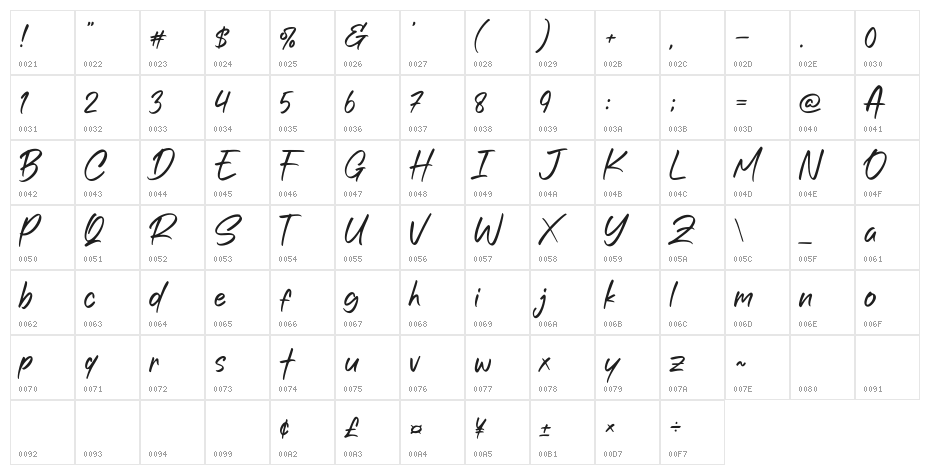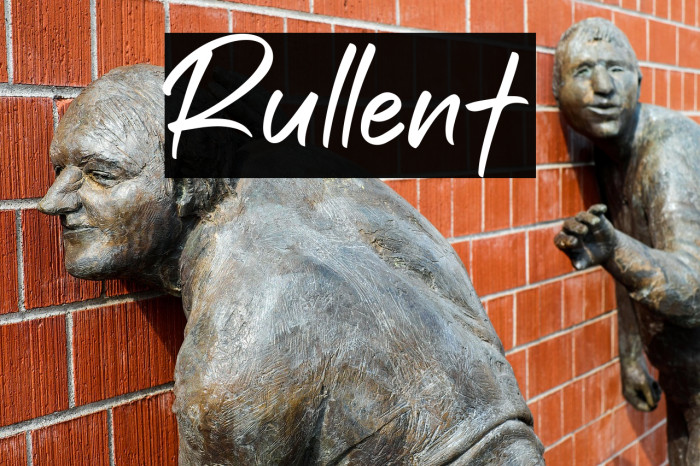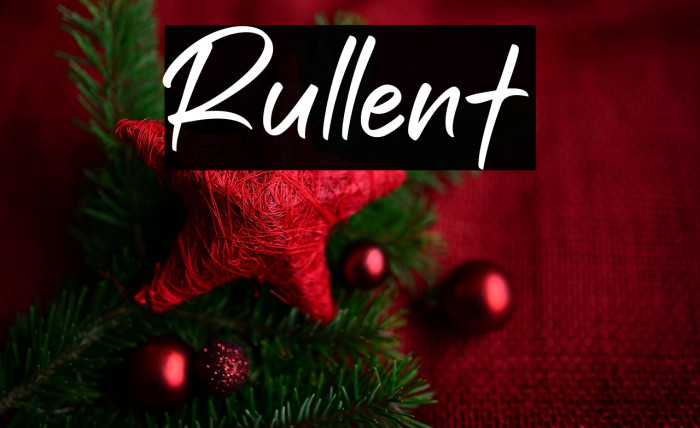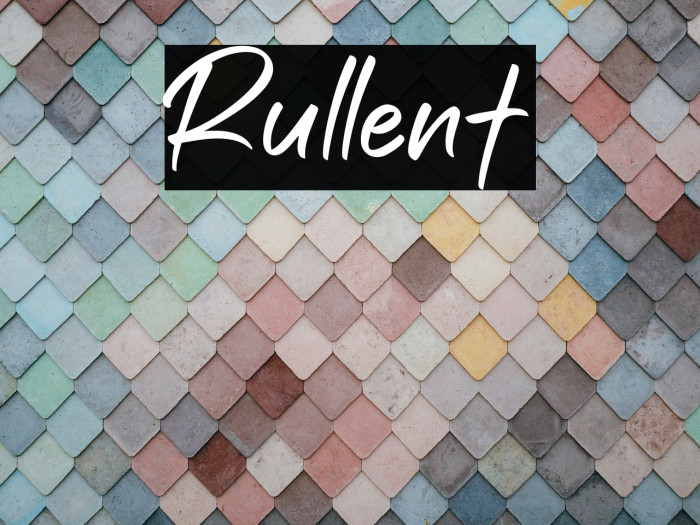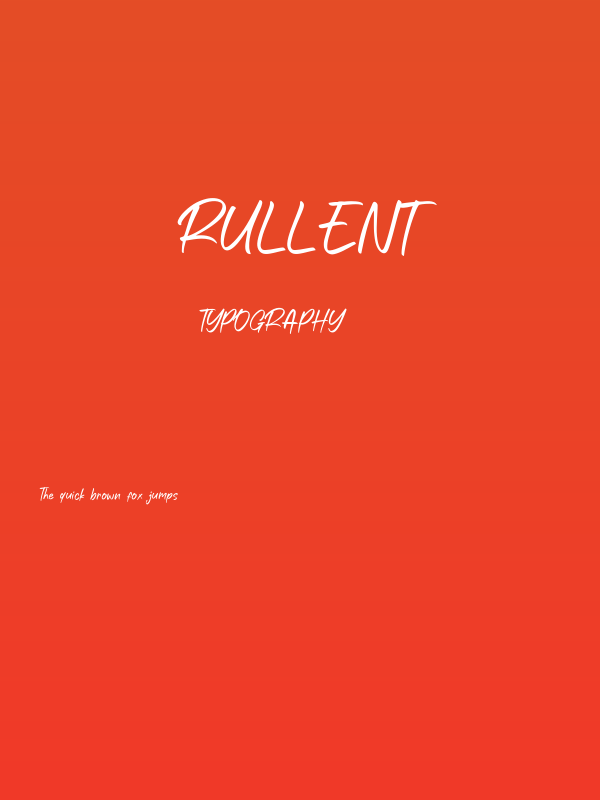
Rullent Font
| Gesamtstil | Casual, Artistic |
| Anwendungsfall | Headlines, Artistic projects, Personal branding |
| Vorgeschlagene Projekte | Ideal for invitations, greeting cards, artistic branding, and personal projects. |